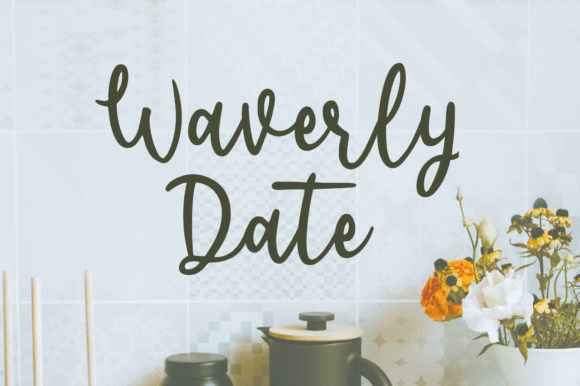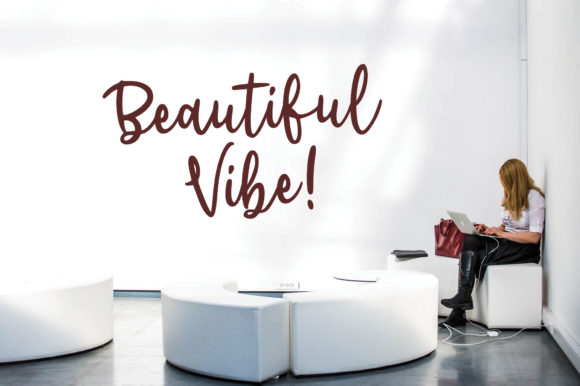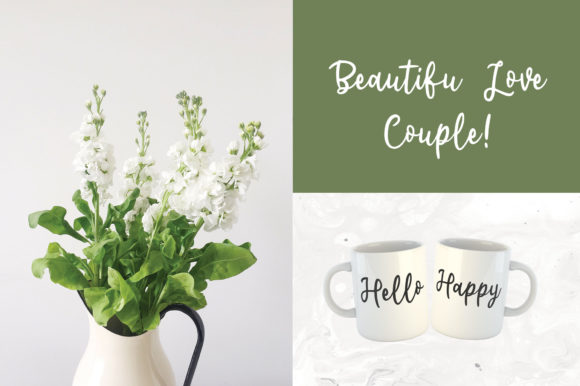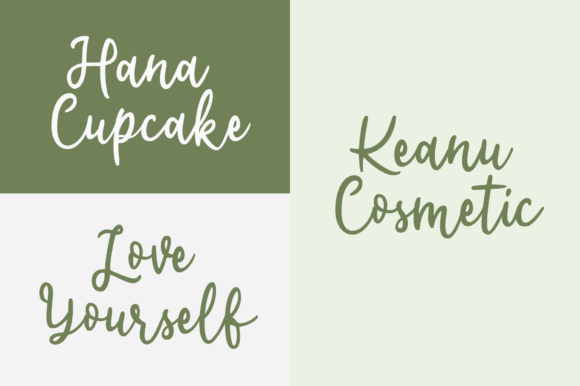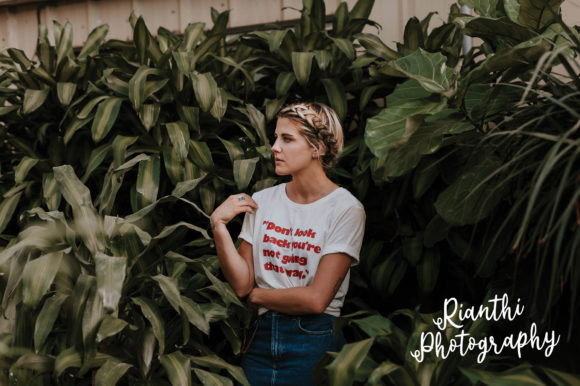
About Waverly Date Font
Waverly Date feels incredibly elegant and flowing. It looks stunning on wedding invitations, thank you cards, quotes, greeting cards, logos, business cards and every other design which needs a handwritten touch. It features a varying baseline, smooth lines, gorgeous glyphs and stunning alternates.